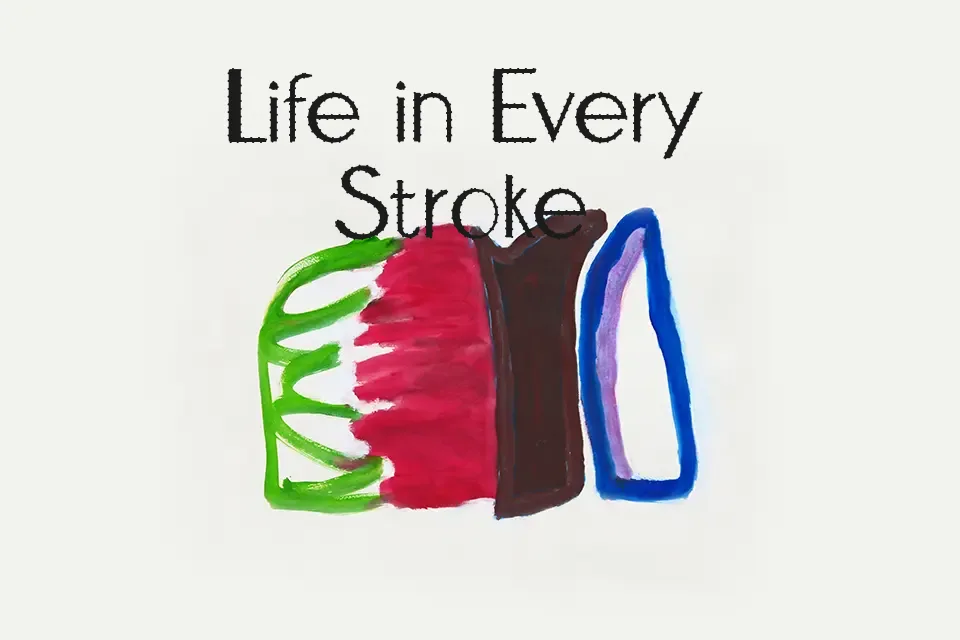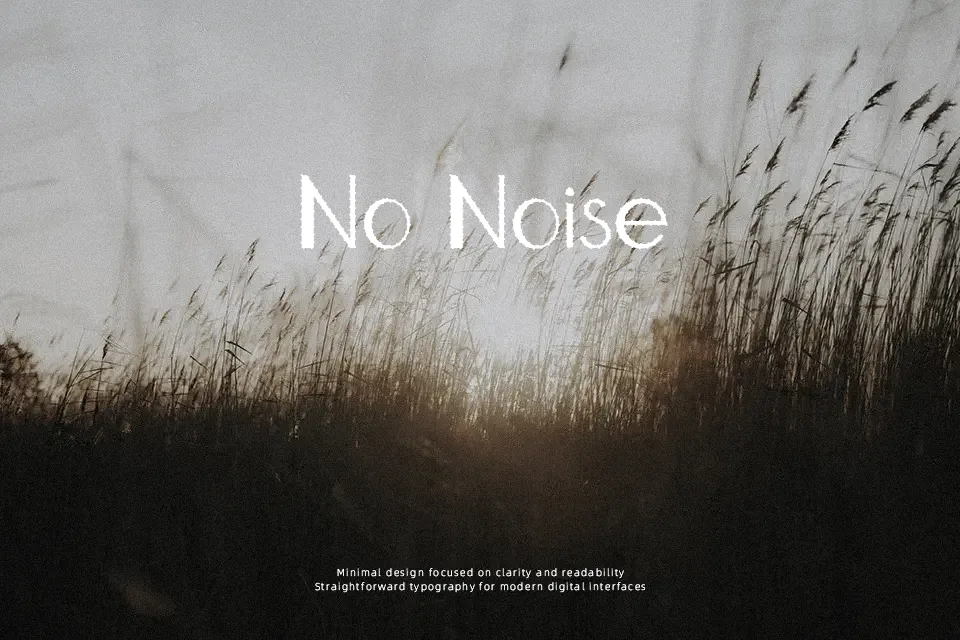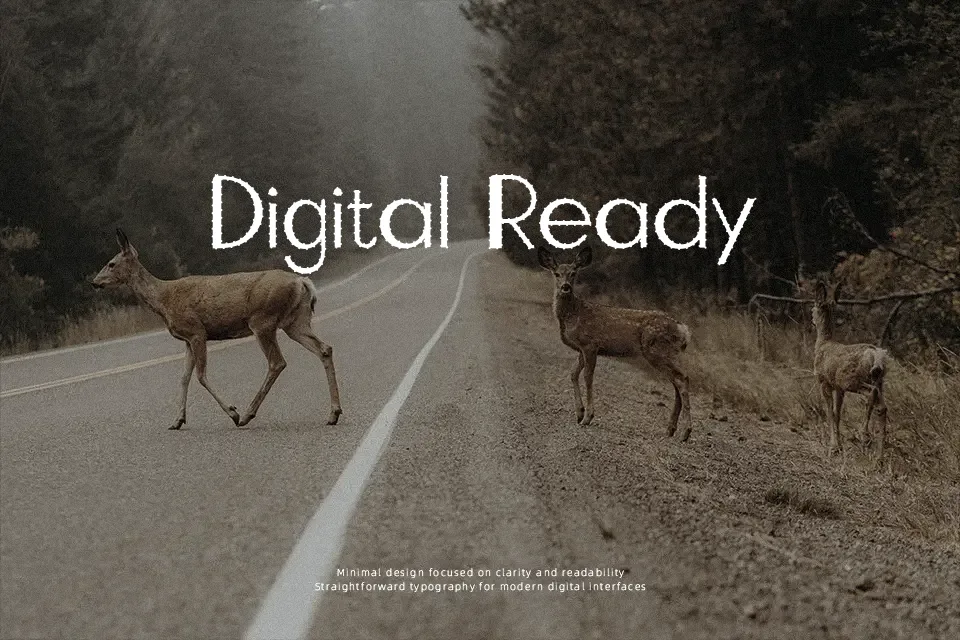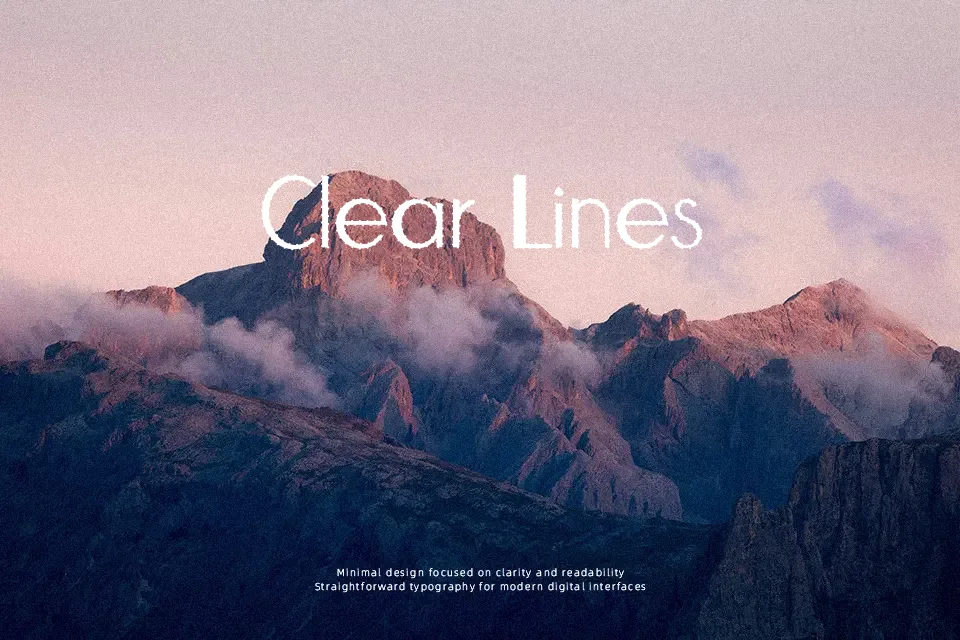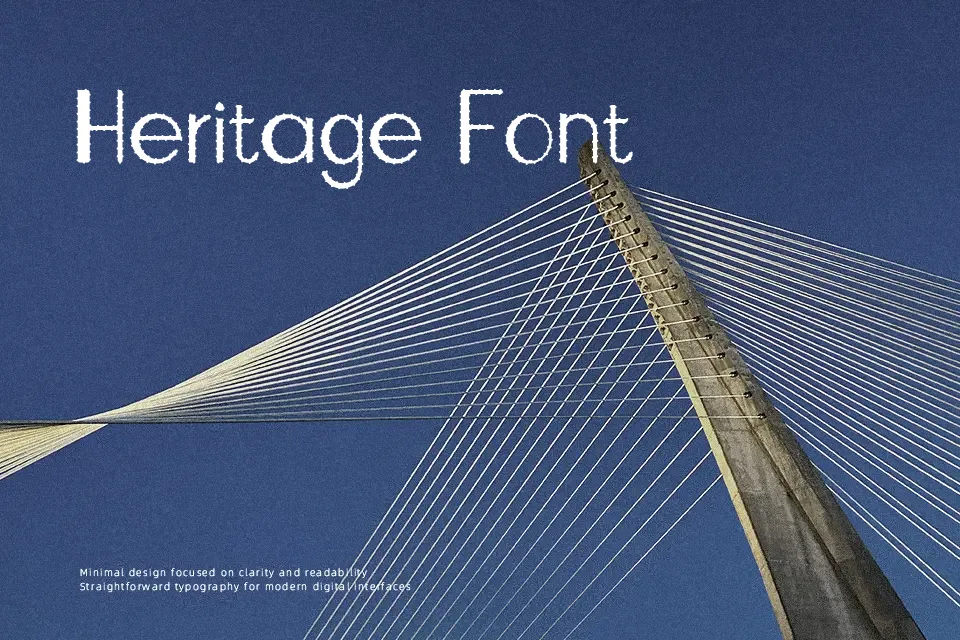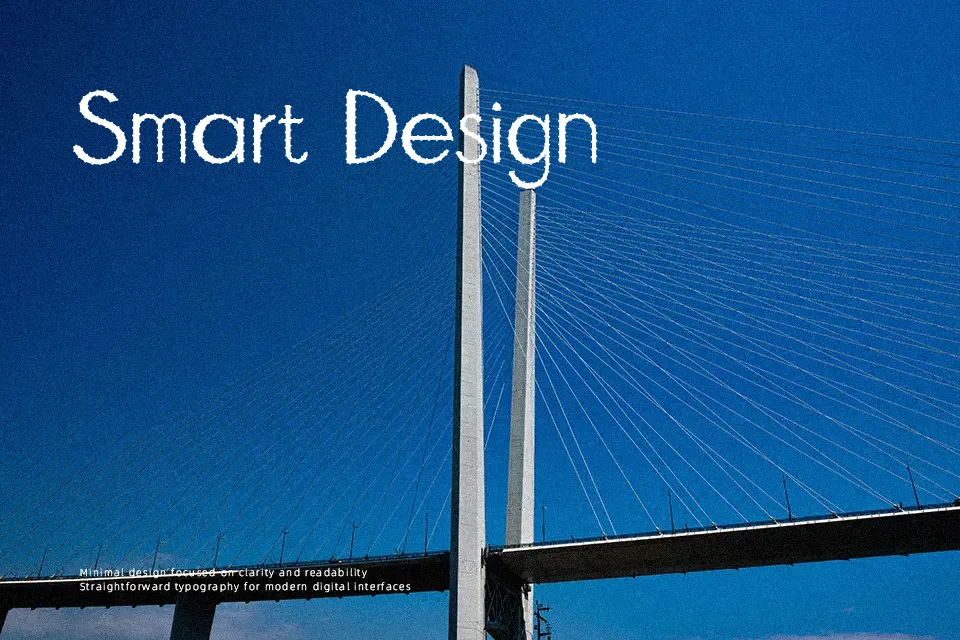
Prickly Cactus Font
Prickly Cactus Font provides a highly decorative and organic structure that immediately draws attention. A short product label or poster headline benefits from the thorny stroke details and rough texture integrated into these energetic letterforms. The characters display moderate width and balanced spacing, ensuring the whimsical spikes do not clutter the visual rhythm of the text. The playful design elements work exceptionally well for botanical branding, children’s books, and themed festival graphics. However, the textured edges and decorative nature become less effective at smaller sizes, as the intricate details can easily blur. Dense forms reduce comfort during extended reading, making this typeface strictly suited for impactful, larger-scale display purposes.
botanical product packaging
themed children’s books
festival poster headlines
quirky logo designs
continuous paragraph text
Perfect for kids, logo, and packaging, with a creative and cartoon style.